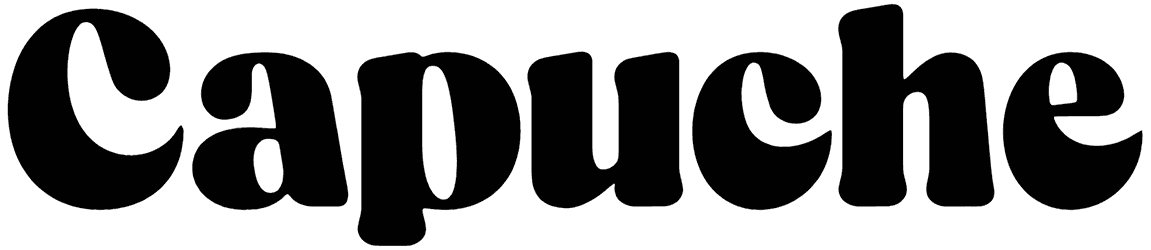
Capuche Font
With its childish fantasy theme, the Capuche font can attract any youth audience. This animated and retro font does not support numbers. Anyway, with other features, you will be able to complete extraordinary poster desi…
With its childish fantasy theme, the Capuche font can attract any youth audience. This animated and retro font does not support numbers. Anyway, with other features, you will be able to complete extraordinary poster designs, comic covers, or chocolate packaging and create a huge impact. Make your visit to Resource Boy more worthwhile and give our constantly updated library of fonts a good look.